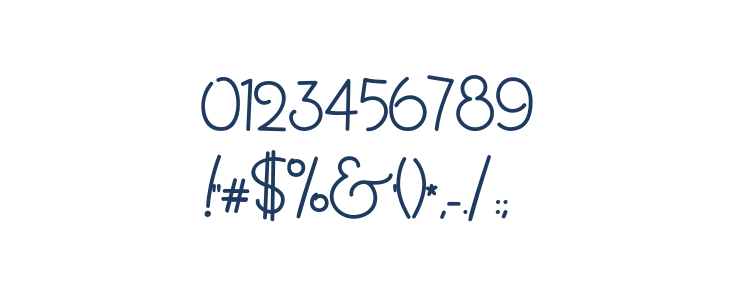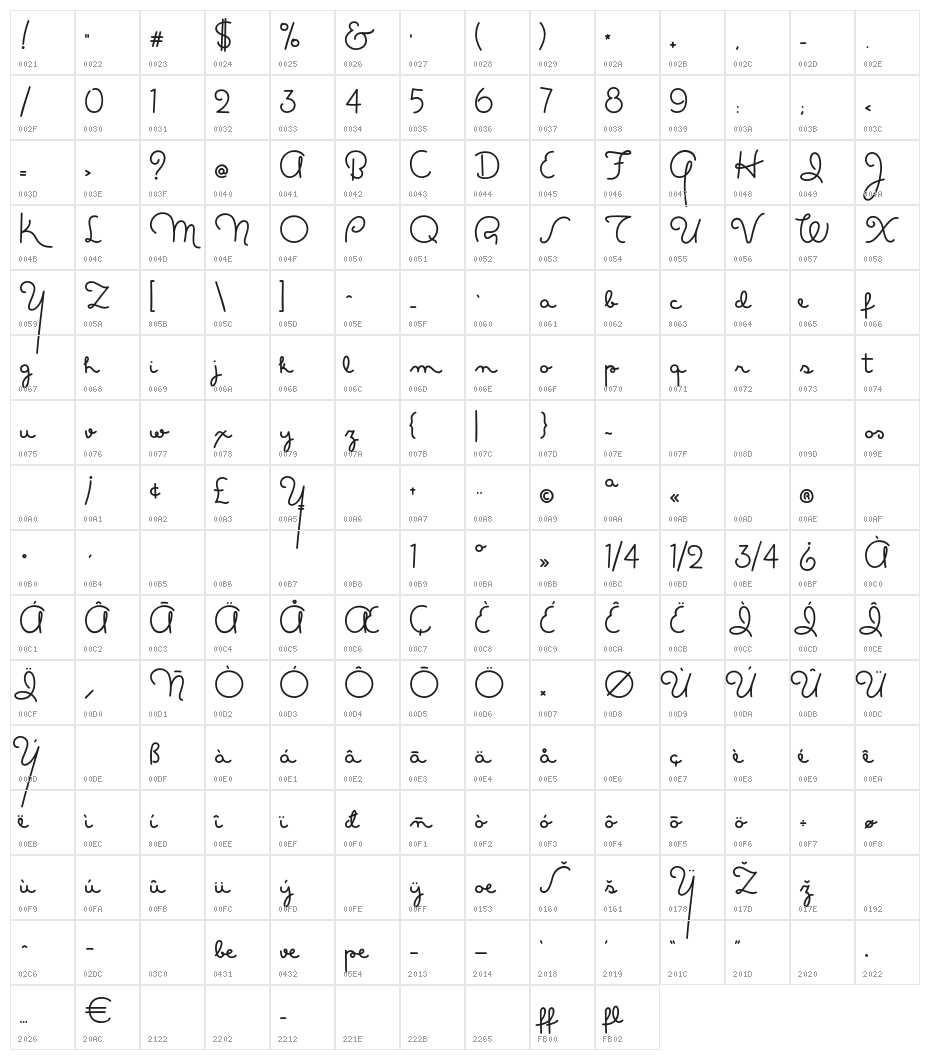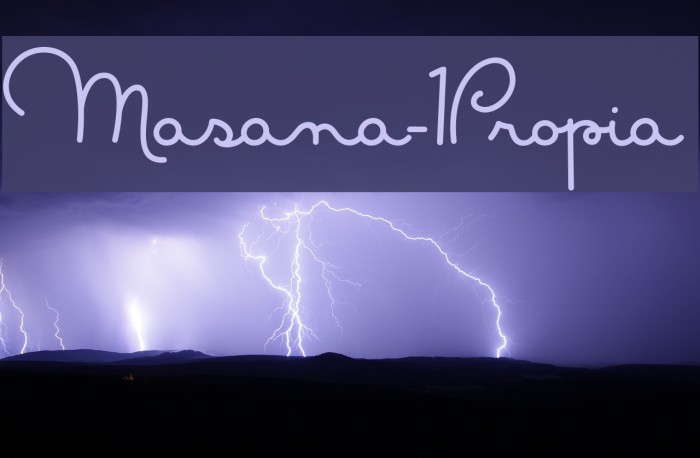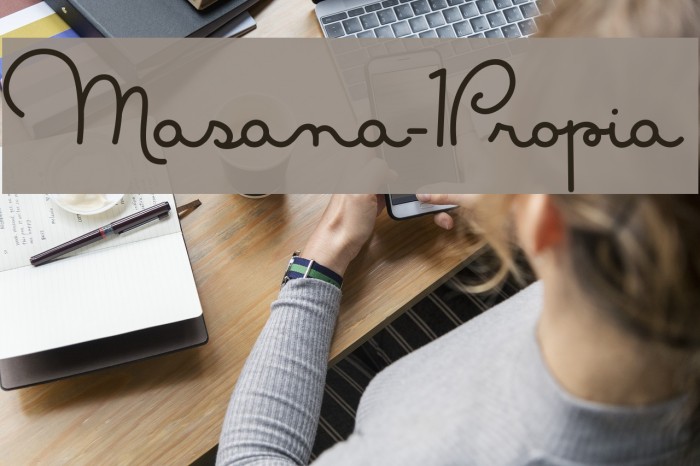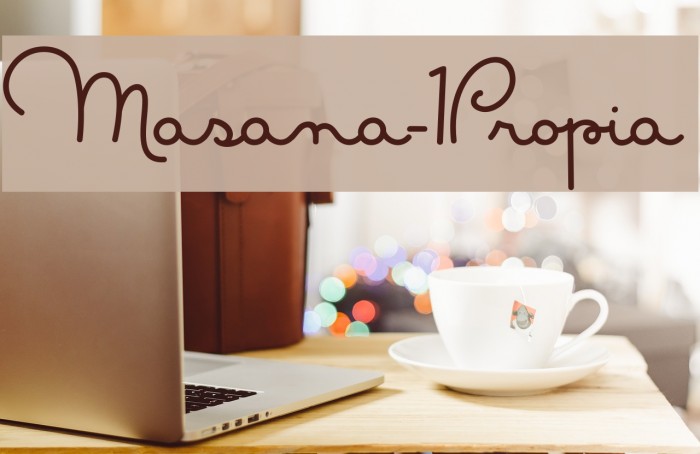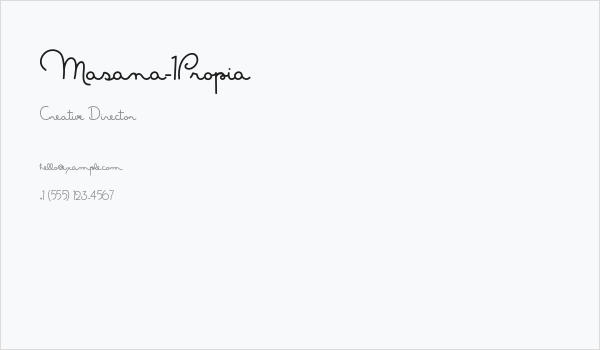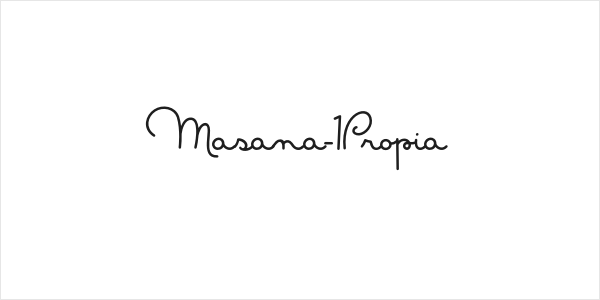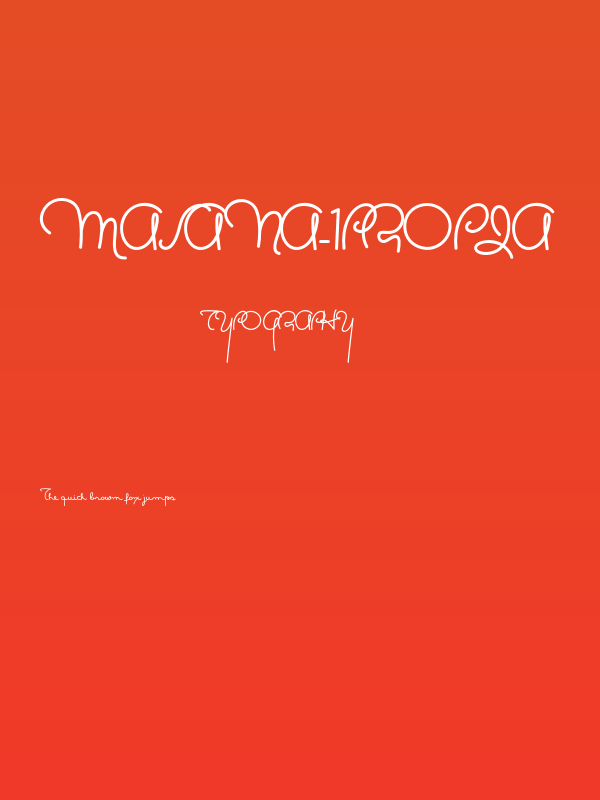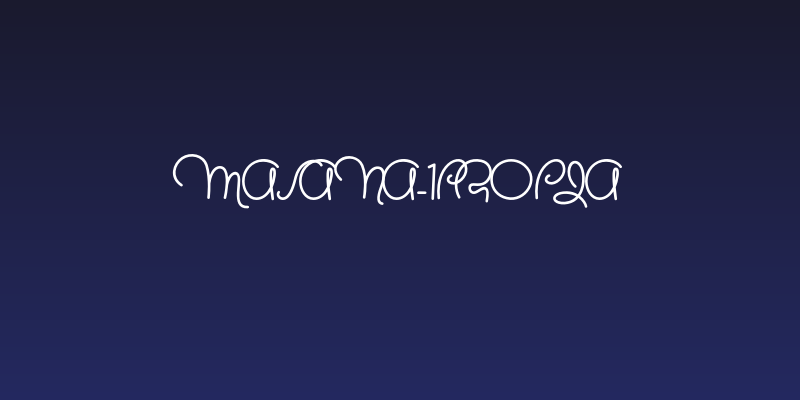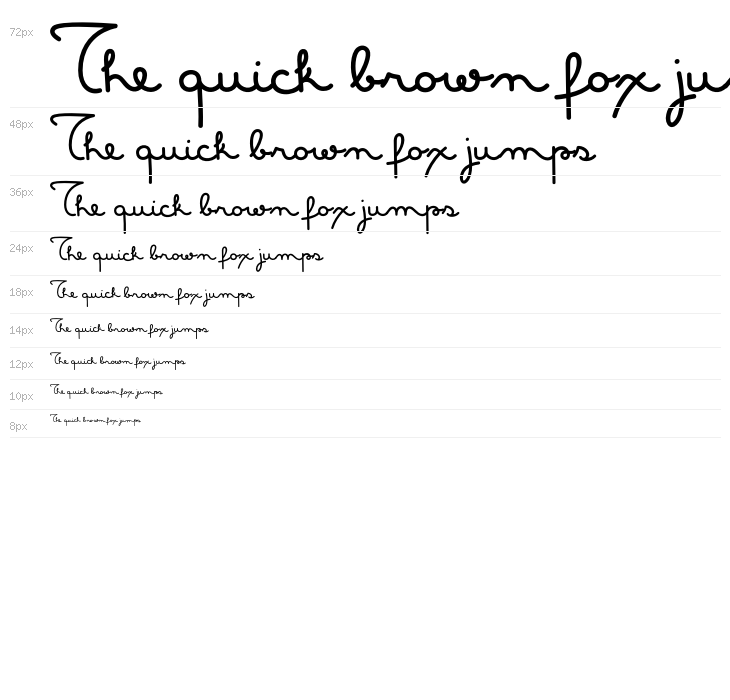
Masana-1Propia Font
Masana-1Propia Description
This font features a playful and whimsical script style, characterized by its flowing, interconnected letters. The uppercase letters exhibit a unique blend of curves and loops, giving them a distinctive, artistic flair. The lowercase letters maintain a consistent flow, enhancing the font's cohesive appearance. Numbers are bold and rounded, complementing the overall style. Special characters are creatively integrated, maintaining the font's lively and dynamic aesthetic. This font is perfect for projects that require a touch of creativity and personality.
| Use Case | Logos, Invitations, Creative projects |
| Proposed Projects | Ideal for greeting cards, invitations, playful branding, and creative posters. |